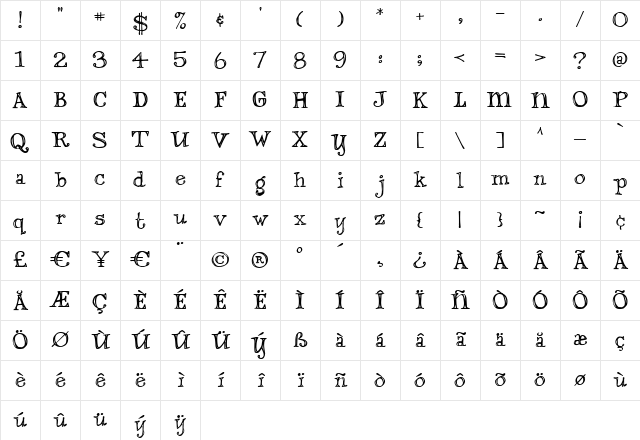
Dannette Outline Regular
Foundry: Fonthead Design Inc.
Designer: Ethan Dunham
Complete Dannette Outline Regular glyph index. Displaying only characters natively supported by Dannette Outline Regular font.
Design Context for Dannette Outline
Dannette Outline is built around its visual character rather than neutral utility - its distinctive forms are designed to make an impression at display sizes.
Font Pairing: Pair with a clean neutral sans-serif for body copy to let Dannette Outline's character lead without overwhelming the composition.
Pro Tip: Use Dannette Outline exclusively at display sizes - it was designed to be seen, not read at length. Let a neutral companion handle body copy.